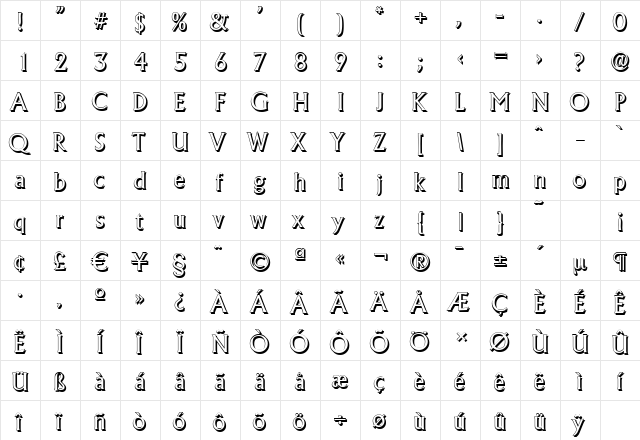
AdelonShadow Regular Font Preview
AdelonShadow Regular
AdelonShadow Regular Font Details
Design Context for AdelonShadow Typeface
AdelonShadow is built around its visual character rather than neutral utility — its distinctive forms are designed to make an impression at display sizes.
Font Pairing: Pair with a clean neutral sans-serif for body copy to let AdelonShadow's character lead without overwhelming the composition.
Pro Tip: Treat AdelonShadow as the centrepiece of your typographic hierarchy. One strong heading set in a decorative face can carry an entire layout.